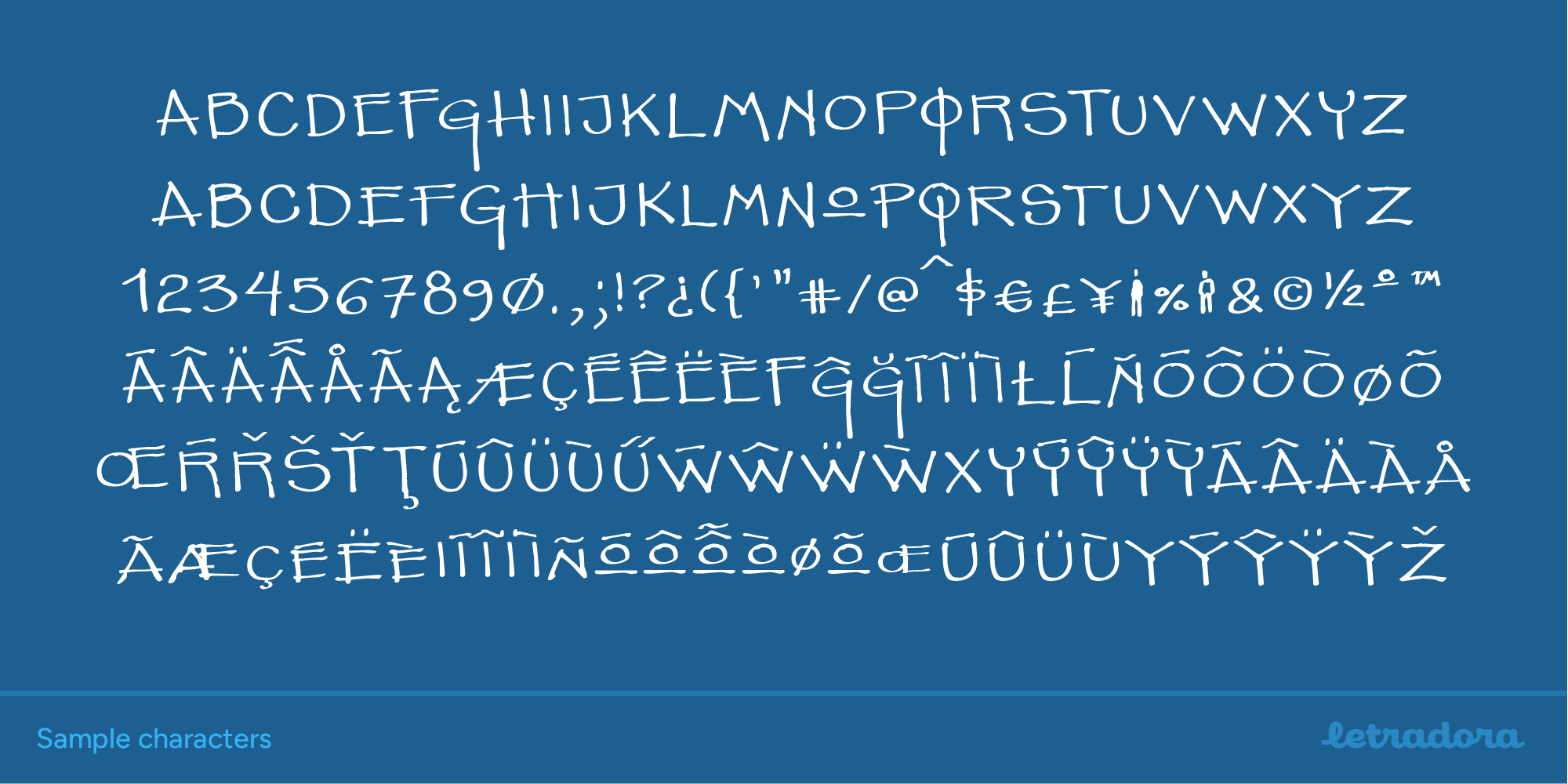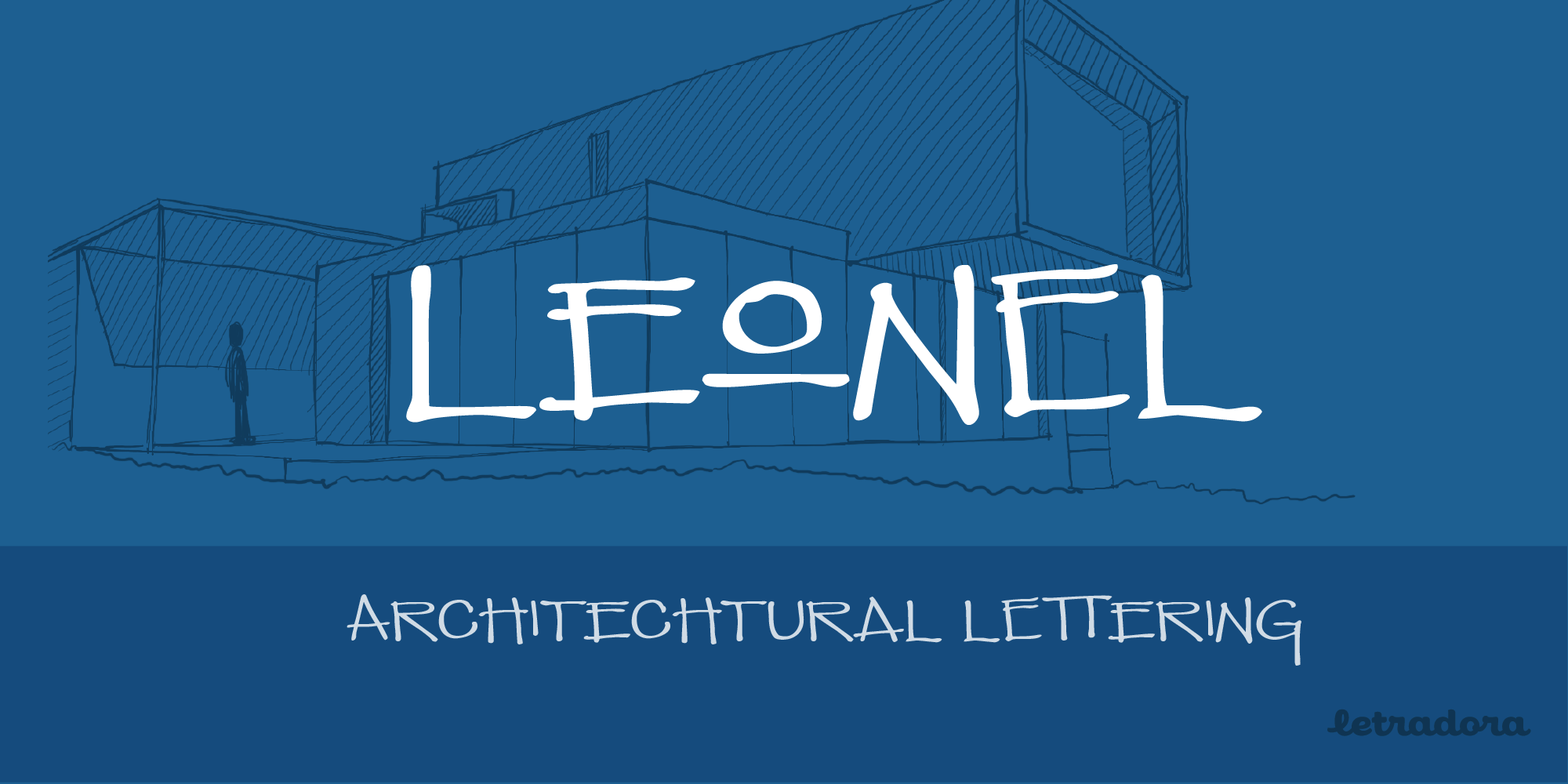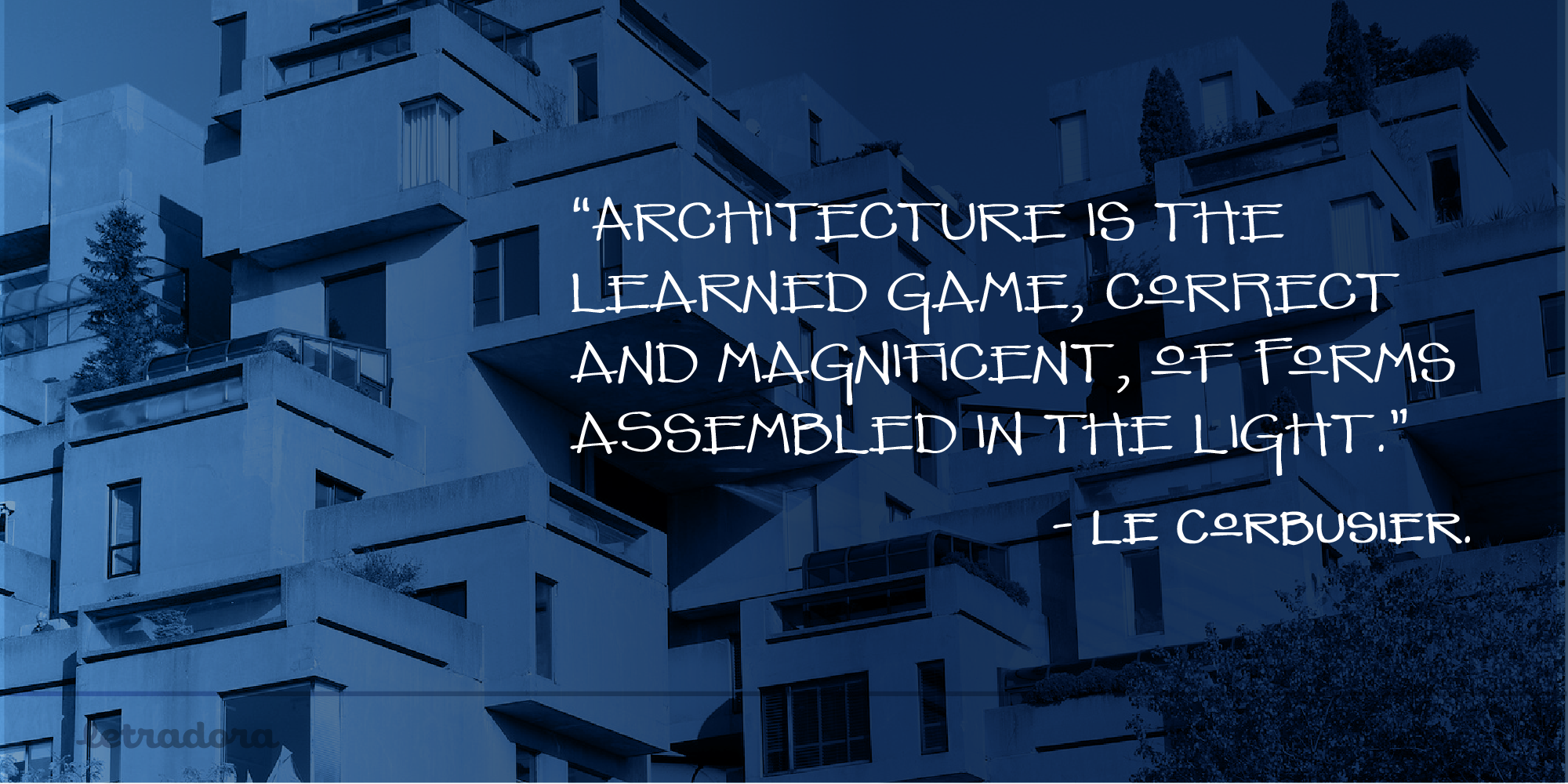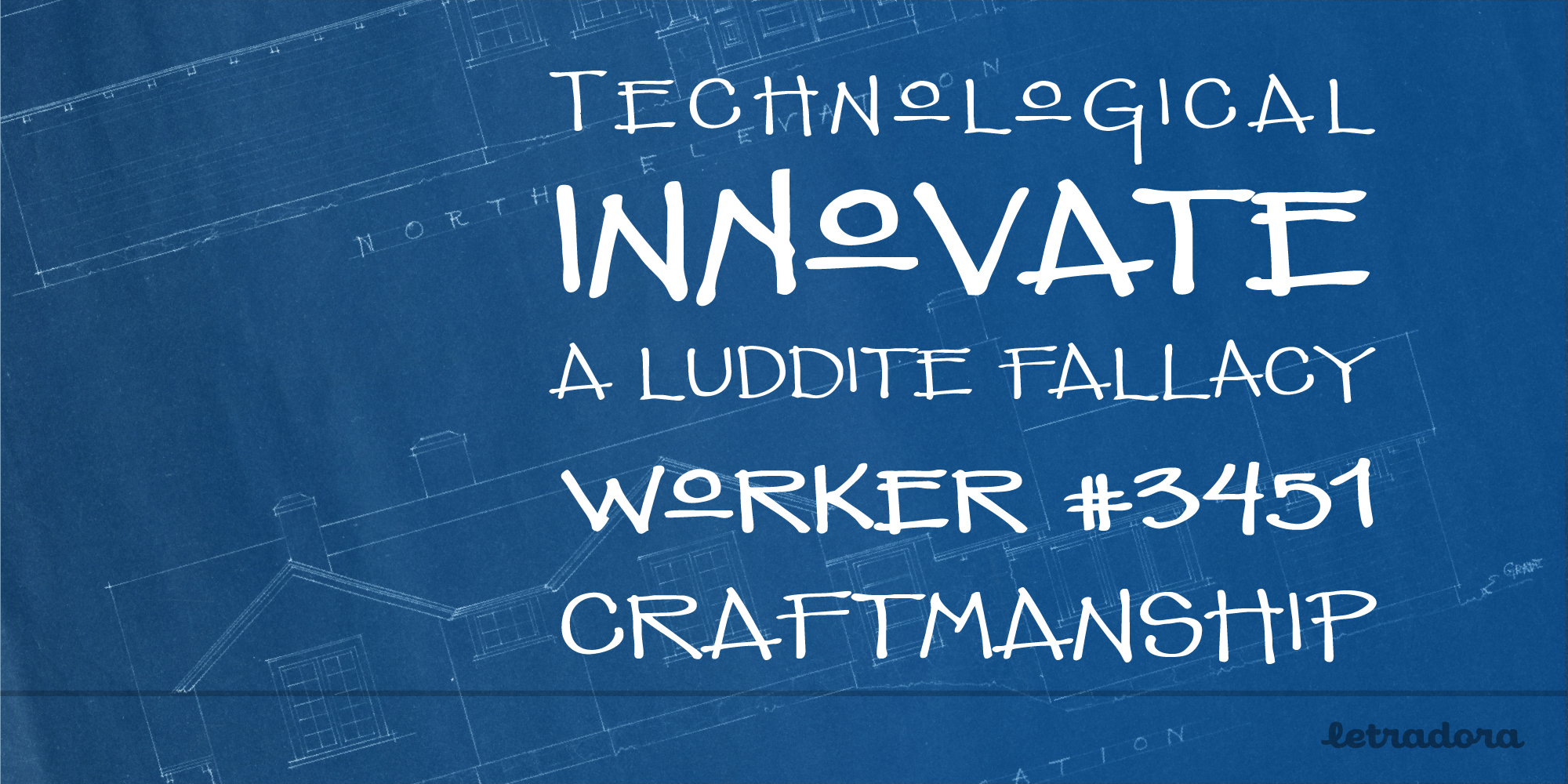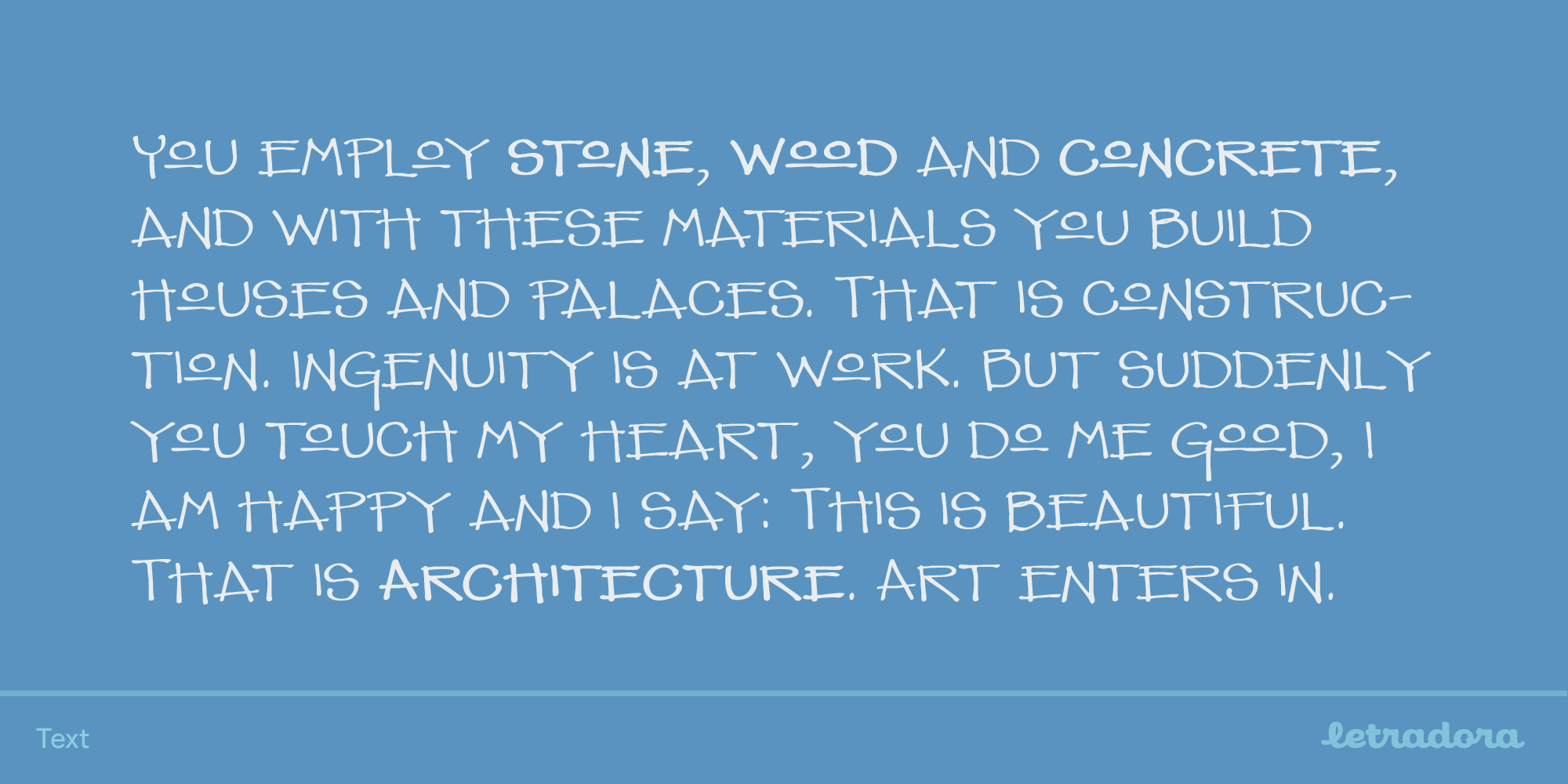
Leonel
From an architects pen
Based on an architect’s handwriting with a calligraphic pen, this cool all-caps font comes with lots of alternates and a very complete character set.